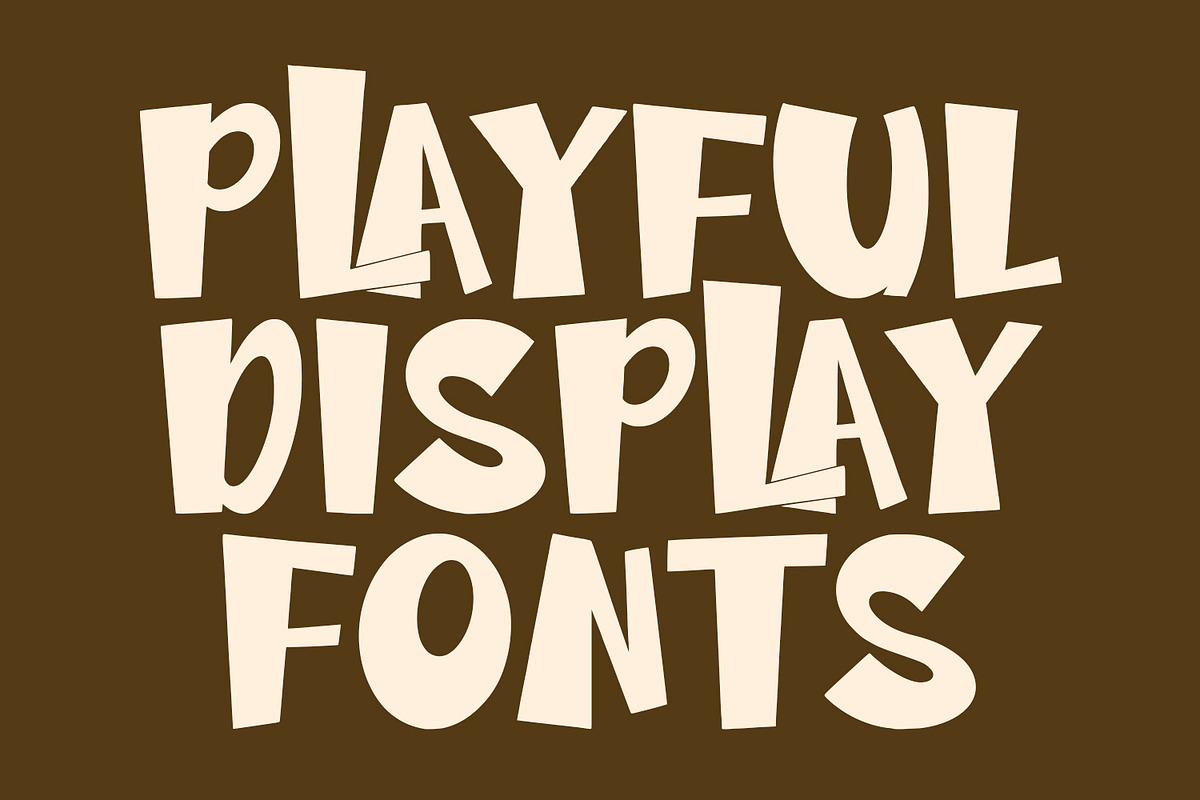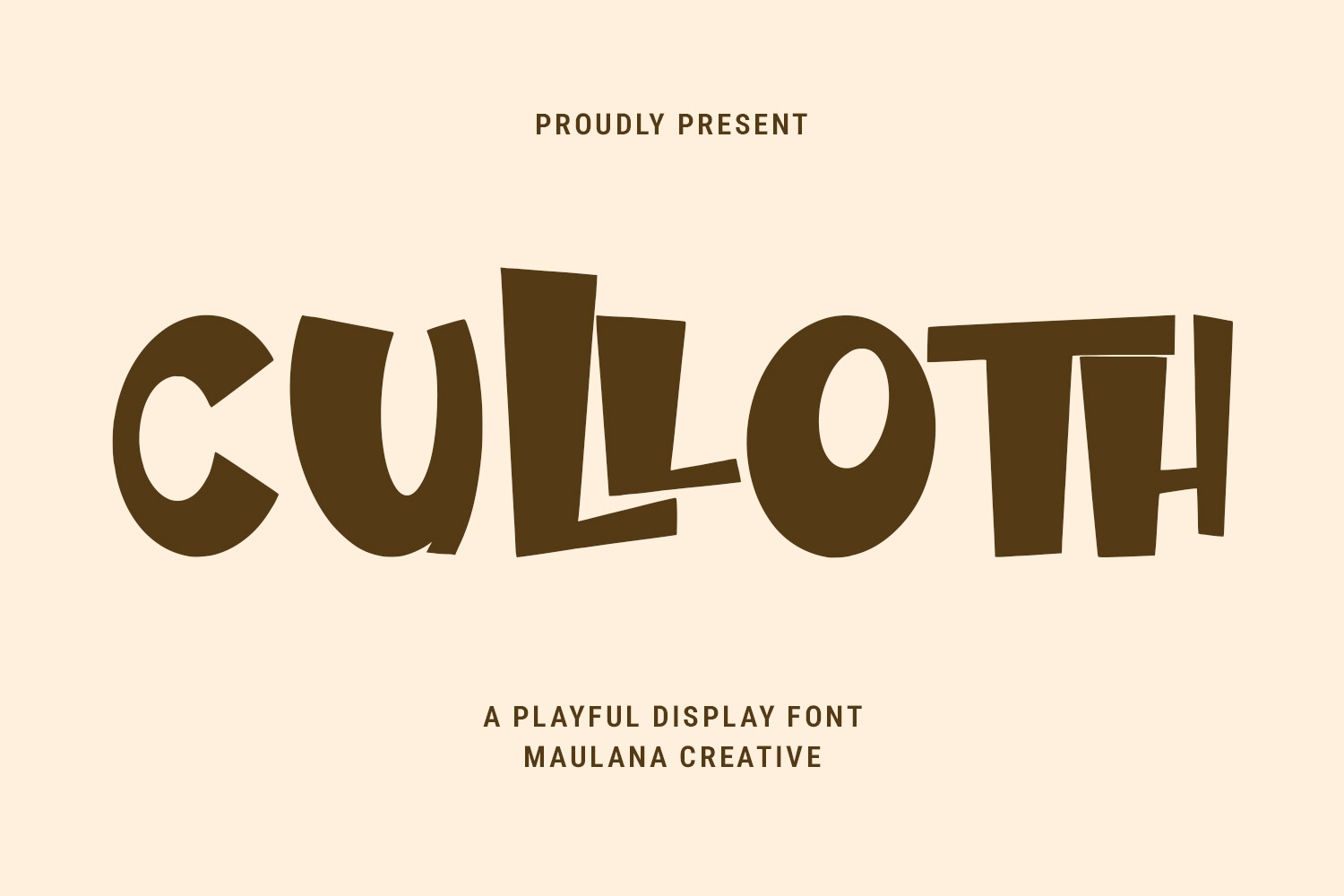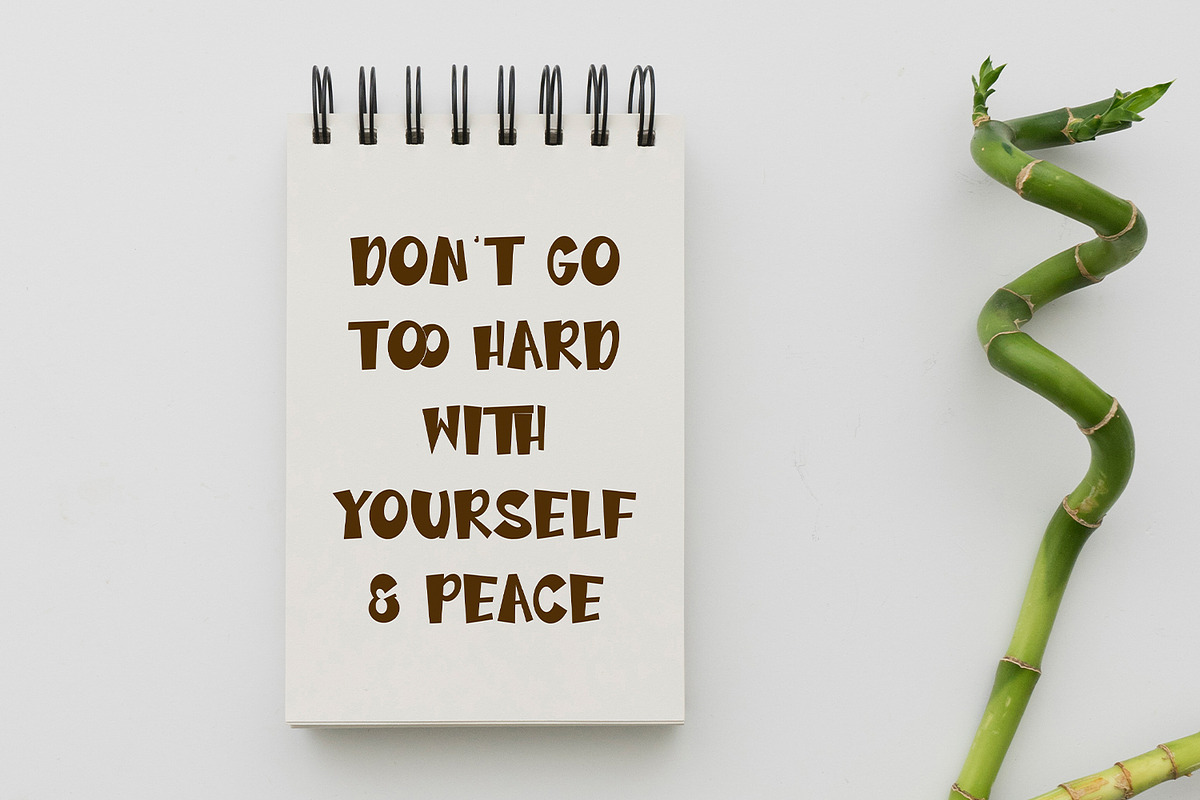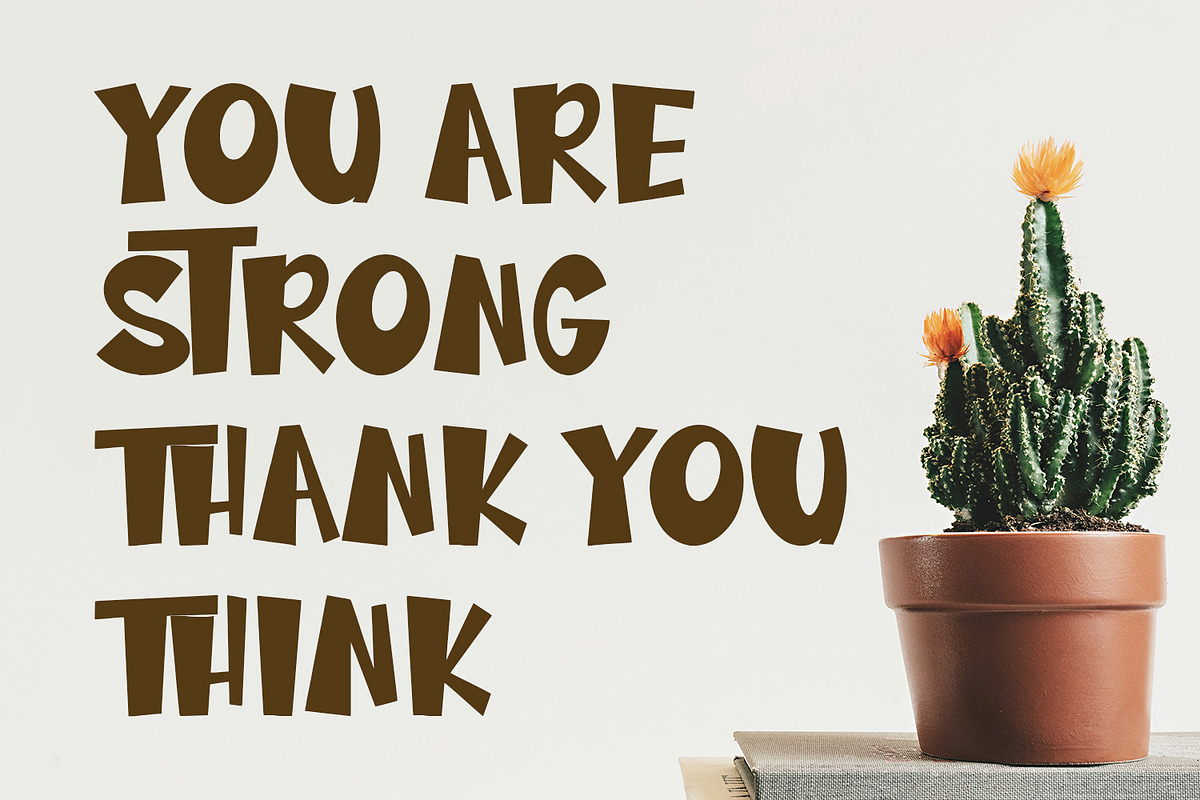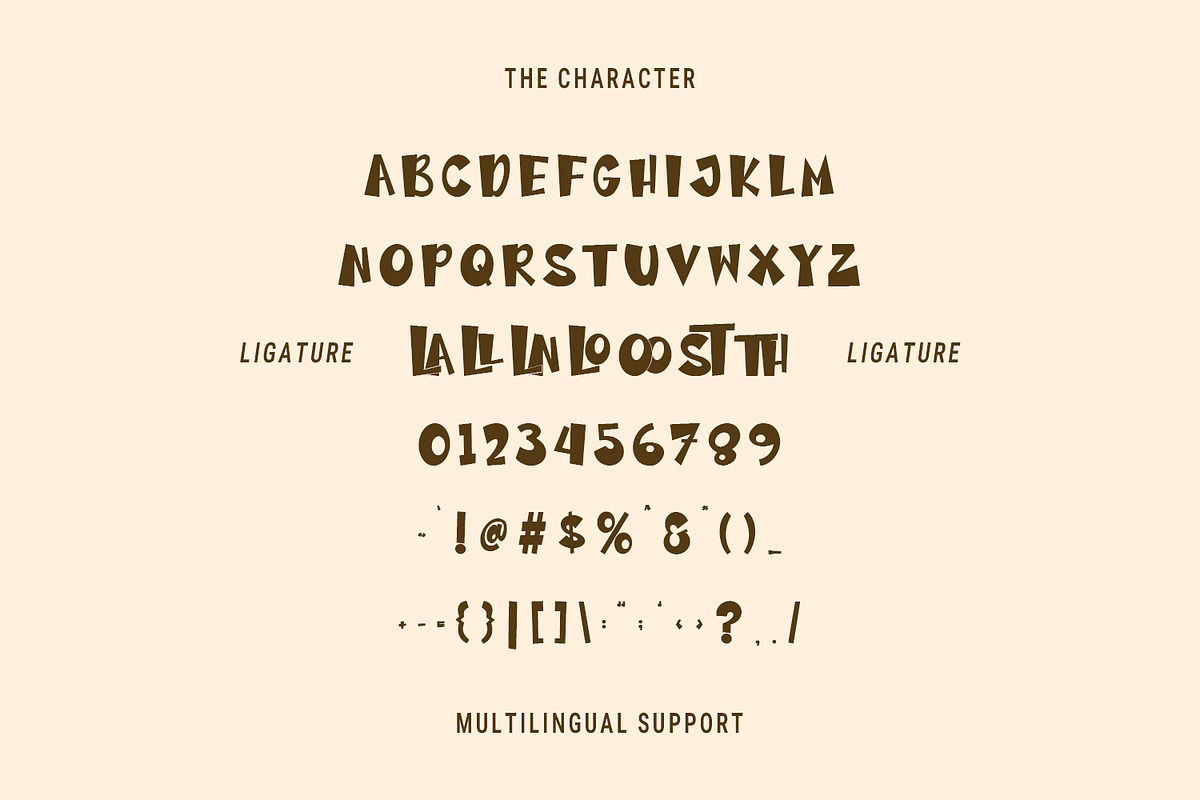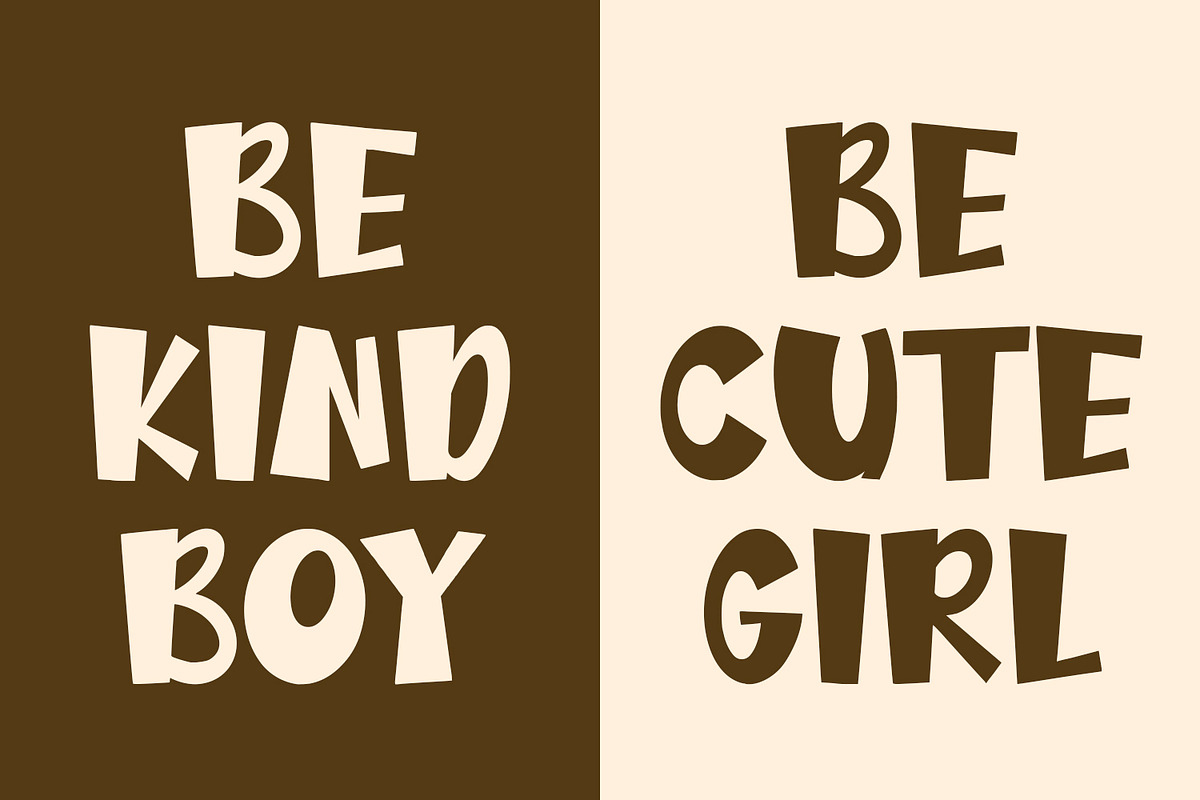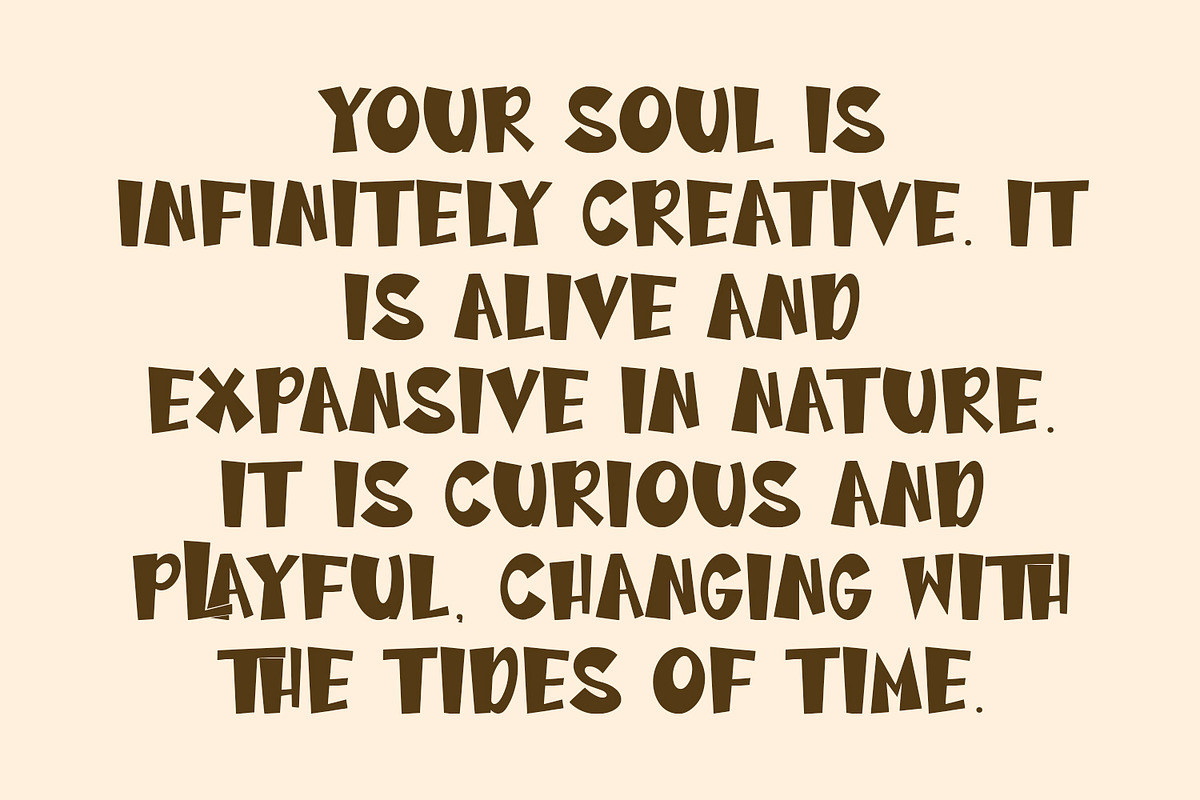
Culloth Playful Display Font
Culloth Playful Display Font. Bold stroke, fun character with a bit of ligatures. To give you an extra creative work. Culloth font support multilingual more than 100+ language. This font is good for logo design, Social media, Movie Titles, Books Titles, a short text even a long text letter and good for your secondary text font with script or serif. Make a stunning work with Culloth font.